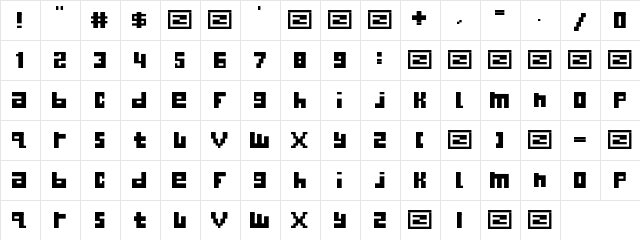
begginner Regular Font Preview
begginner Regular
begginner Regular Font Details
Design Context for begginner Typeface
begginner takes a measured approach to typography — its balanced proportions and neutral character make it a reliable workhorse for both digital and print work.